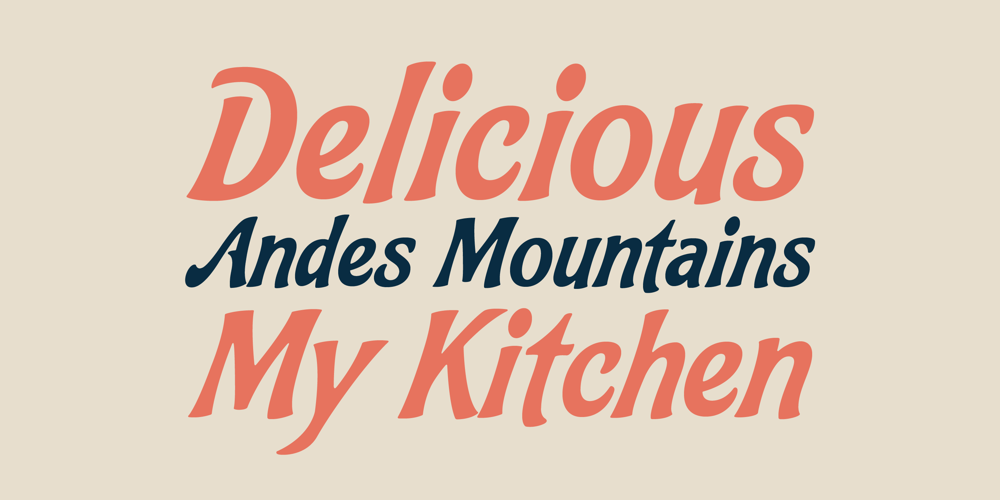
Felipe
Felipe font
Felipe Font Family was designed by Alejandro Paul, Angel Koziupa and published by Sudtipos. Felipe contains 1 styles and family package options. As a follow-up to his popular Chocolate font, Angel Koziupa softens his brush again to produce Felipe, a font made in the memory of his brother. As packaging-friendly and versatile as any Koziupa font, Felipe contains fresh perspectives on old characters. Some of the majuscules and figures show characteristics normally reserved for minuscules. The overall color of the font is somewhat bittersweet, which adds to its ability to capture the attention in display settings. Felipe is ideal for packaging, signs, culinary-related designs, and posters.